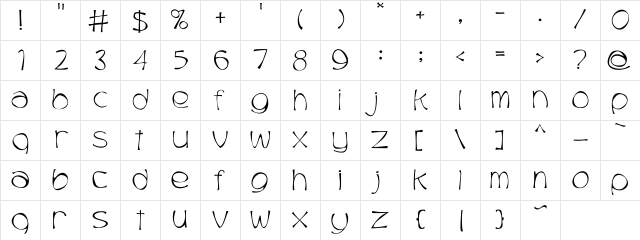
Trubble Regular Free Font
Trubble Regular
Design Context for Trubble
Trubble is a composed and adaptable typeface that performs quietly and consistently across a wide range of design contexts.